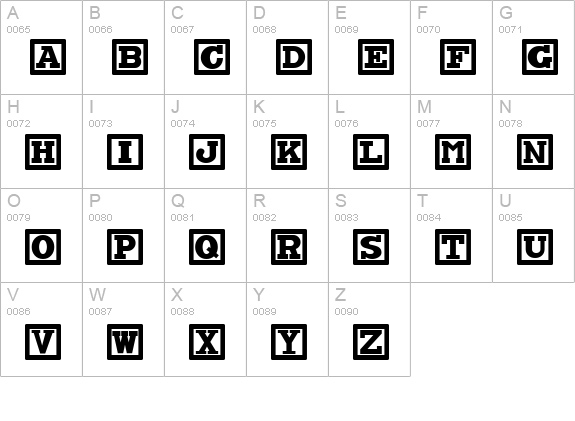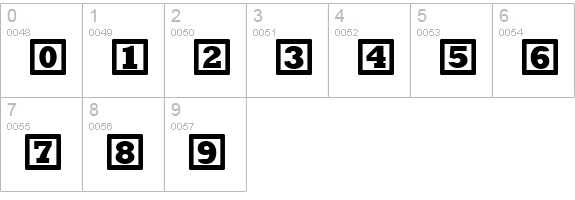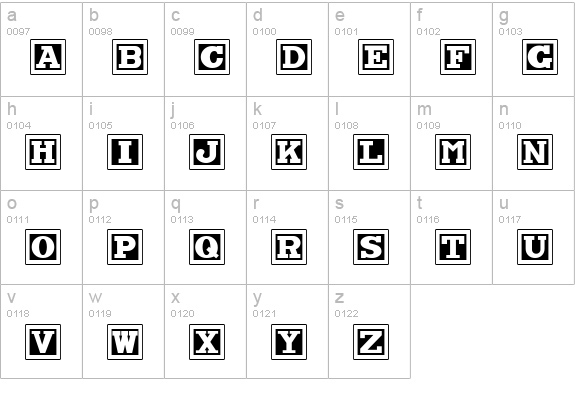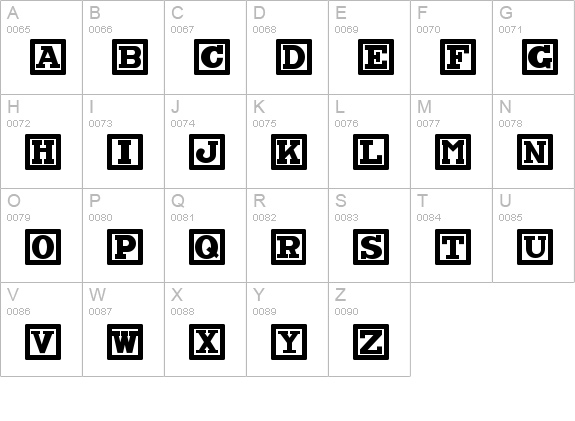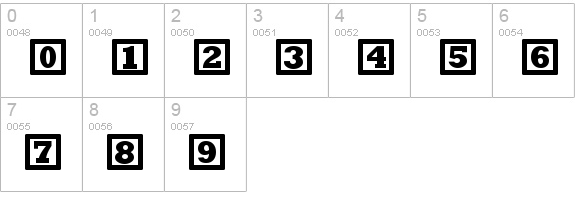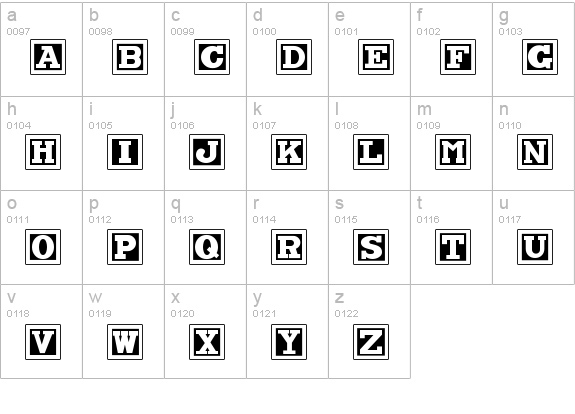
ChockABlockNF Font Details
ChockABlockNF is a playful and eye-catching display font that exudes a sense of fun and creativity. With its bold and chunky letterforms, this font is perfect for making a statement in headlines, posters, and other design projects that require a touch of whimsy. The best part? ChockABlockNF is available for free download at FontsMarket.com, making it easily accessible to designers and creatives looking to add a unique and dynamic touch to their work. Whether you're working on a branding project, a social media graphic, or a party invitation, ChockABlockNF is sure to make your text stand out and grab attention. Don't miss out on this fantastic font – download ChockABlockNF for free today and unleash your creativity!